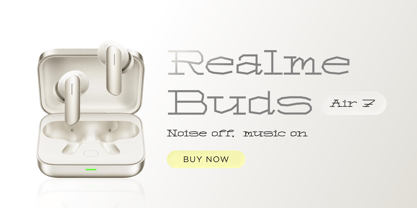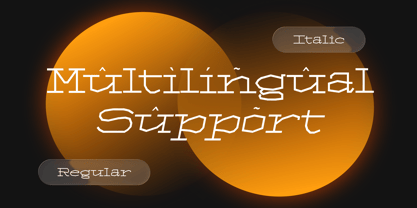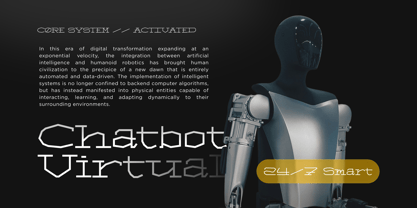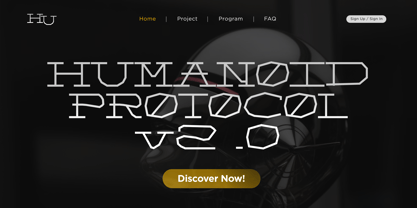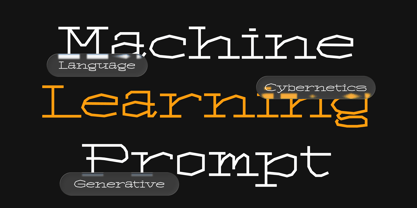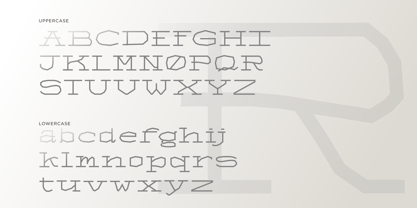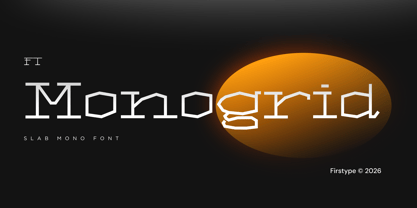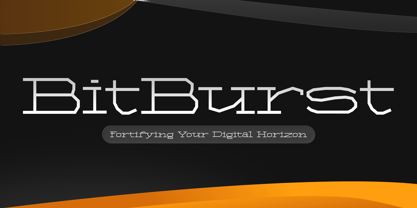
FT Monogrid
Precision, meet power. Introducing FT Monogrid.
FT Monogrid is a high-performance display typeface designed for the modern era. Built upon a rigid, modular grid system, this font blends technical precision with a bold, futuristic edge. Its sharp terminals and balanced letterforms create a striking visual rhythm, making it an essential tool for designers who demand clarity, structure, and impact.
Available in both Regular and Italic weights, FT Monogrid offers the versatility to build sophisticated hierarchies in editorial layouts or to stand alone in high-concept branding. Whether you are working on architectural visuals, tech interfaces, or experimental street-wear identity, FT Monogrid provides the structural foundation your work deserves.
Perfect for:
• Tech & Innovation Branding: Logos and identities for AI, SaaS, and engineering firms.
• Editorial & Layout Design: Clean, grid-based magazine spreads and posters.
• UI/UX Design: Futuristic app interfaces and digital platforms.
• Apparel Graphics: Striking, avant-garde streetwear designs.